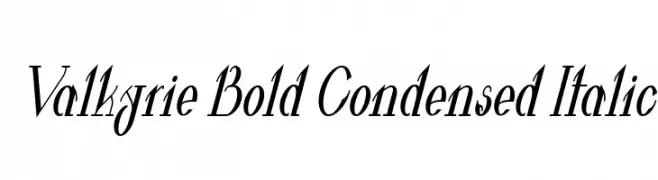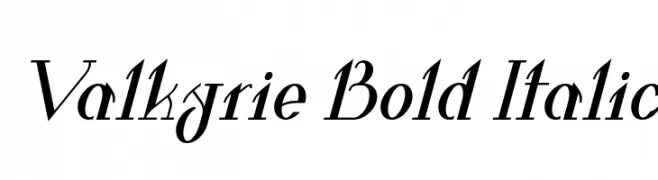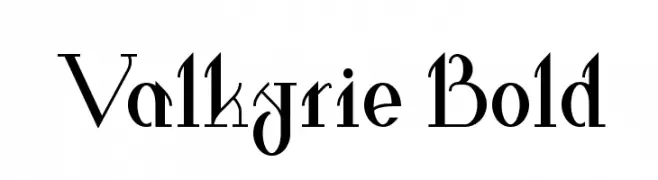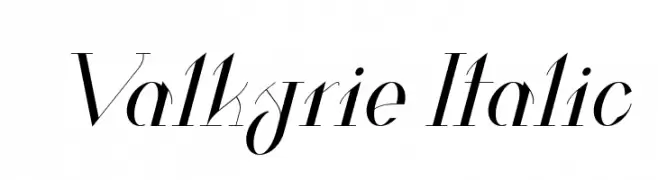
A bold, condensed font with high contrast and sharp serifs, blending modern and classic styles.
A bold, italicized font with a modern and sophisticated style.
A bold, condensed, and italic font with high contrast and dynamic style.
A bold, extended font with sharp angles and smooth curves, offering a modern and dynamic look.
A high-contrast, elegant font with modern and classic elements.
An elegant italic font with high contrast and fluid movement.
An elegant, high-contrast italic font with elongated letterforms and an extended width.
A bold, high-contrast serif font with modern and classic elements.
A sleek, condensed italic font with high contrast and elegant design.
A bold, extended, and italic font with high contrast and elegant style.